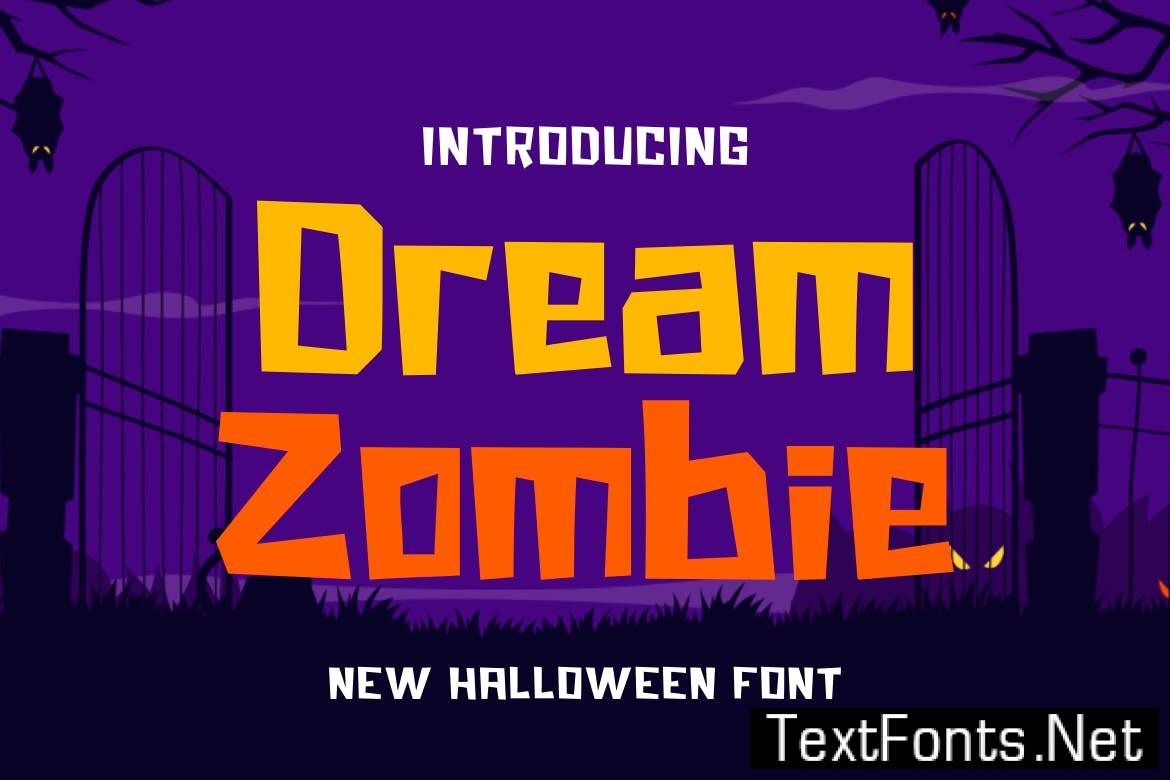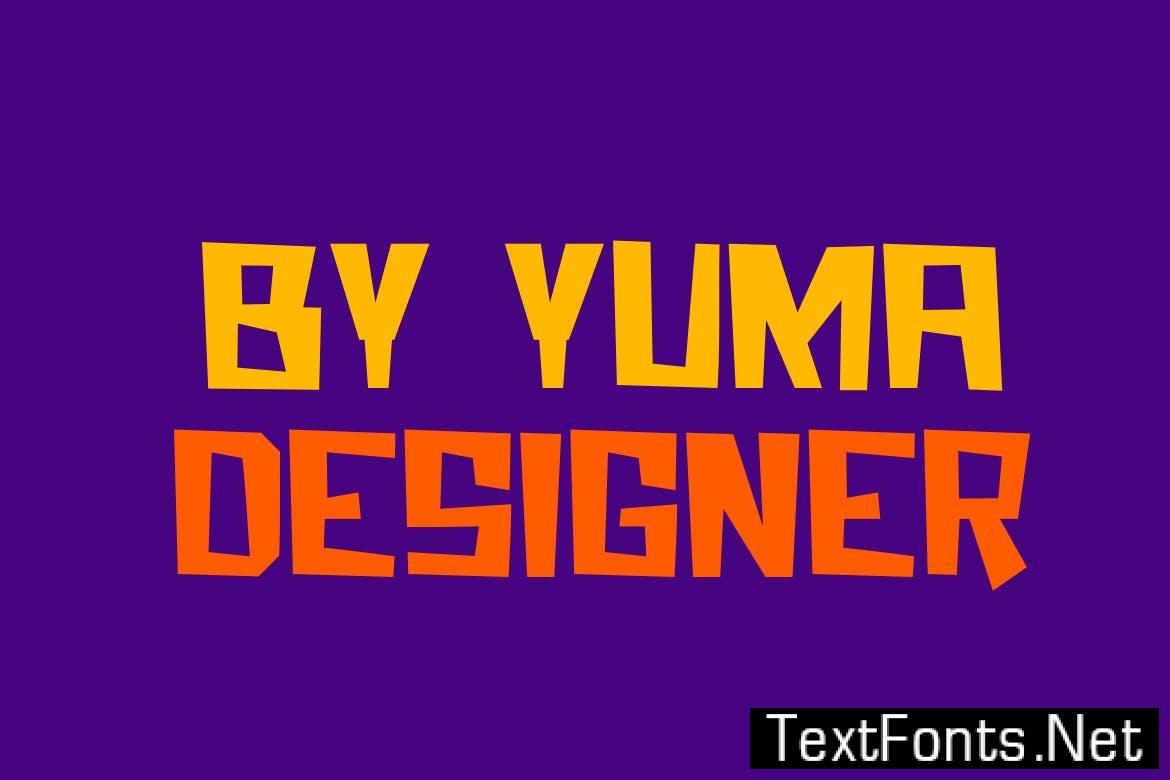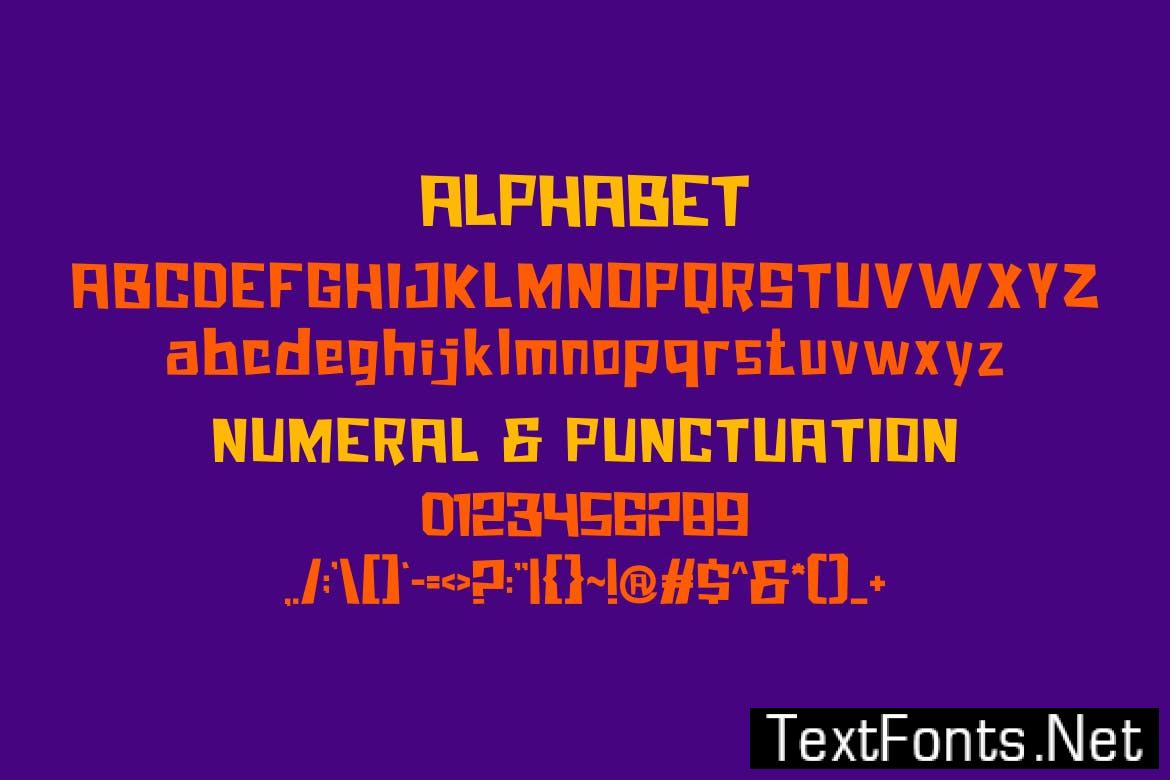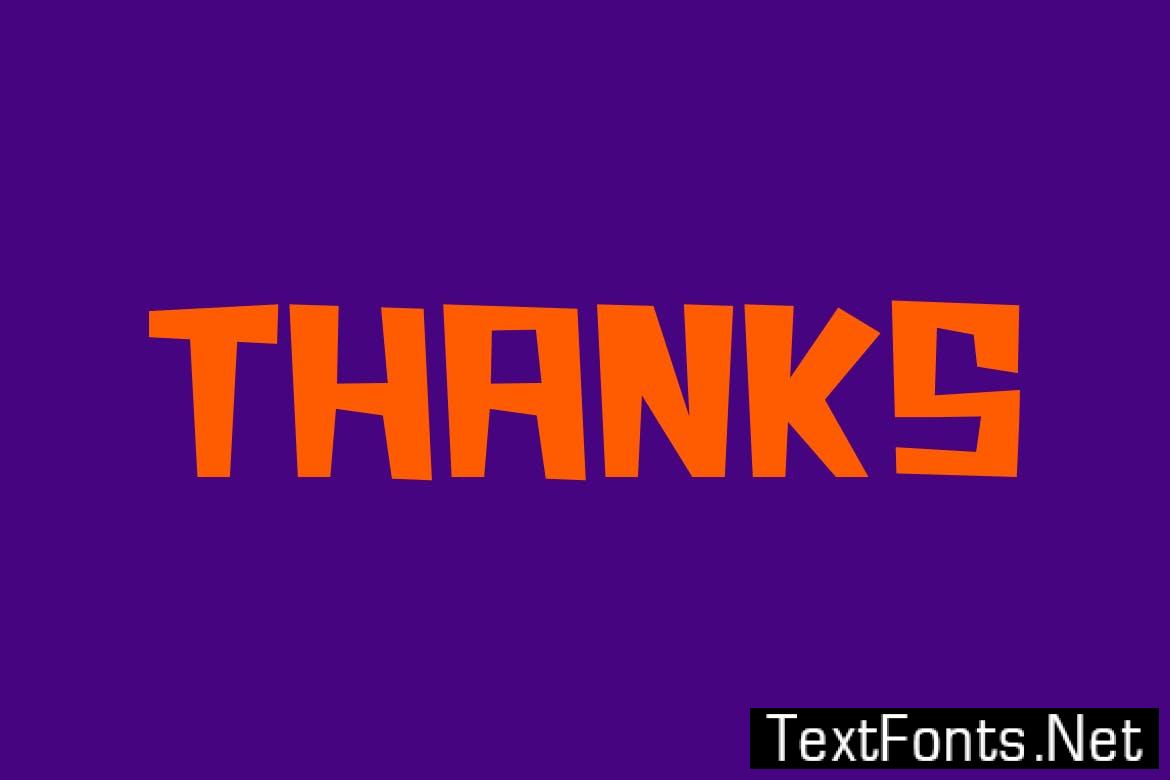
Dream Zombie – Halloween Font V4QTQZN
**Dream Zombie Font** works very well in upper and lower case. Perfect for
birthday invitations, stationery, kids t-shirt designs, labels, logos, branding, packaging, calendars
and more projects about kids!